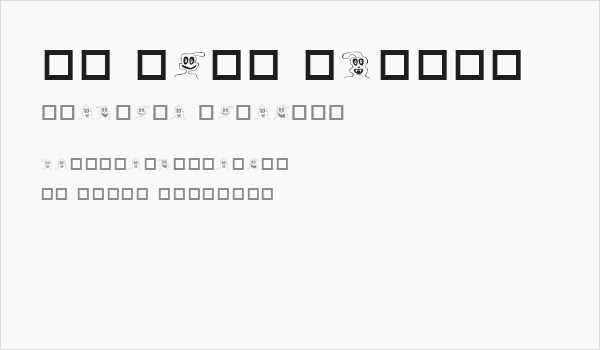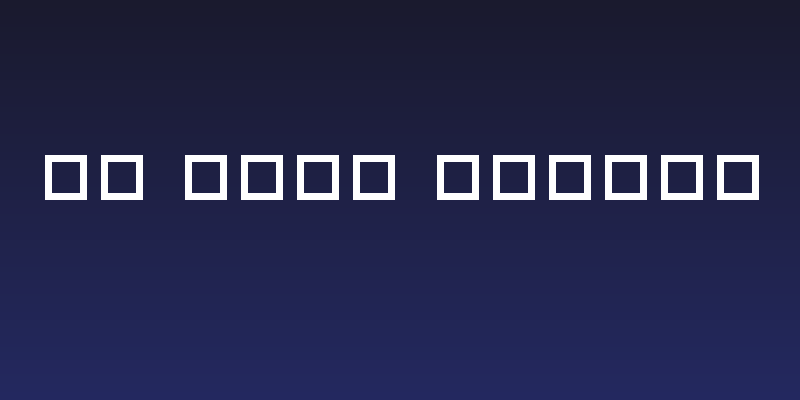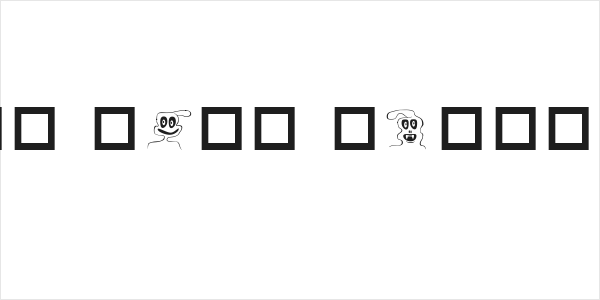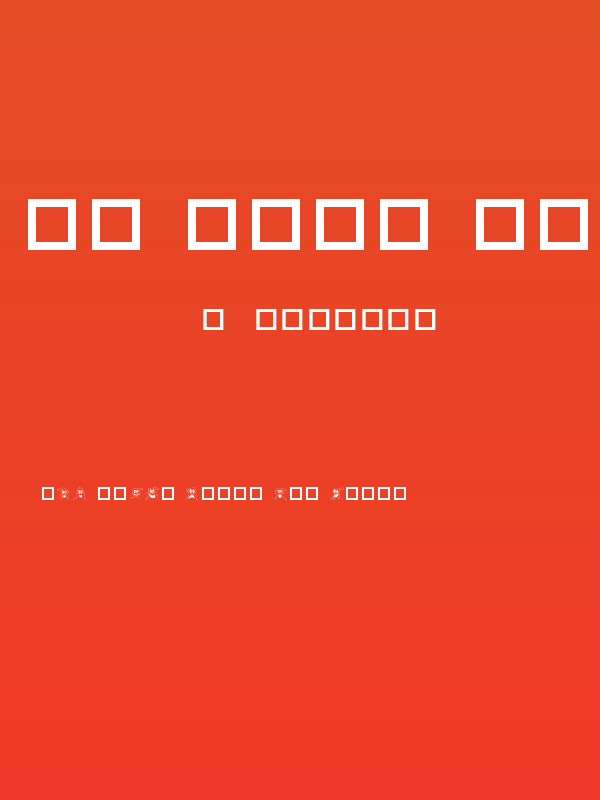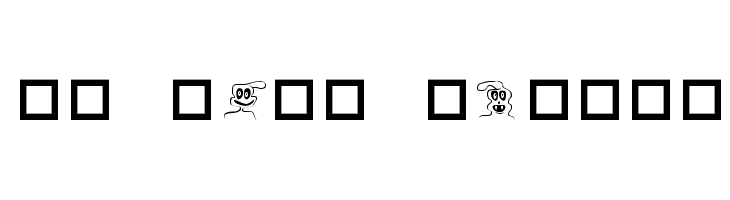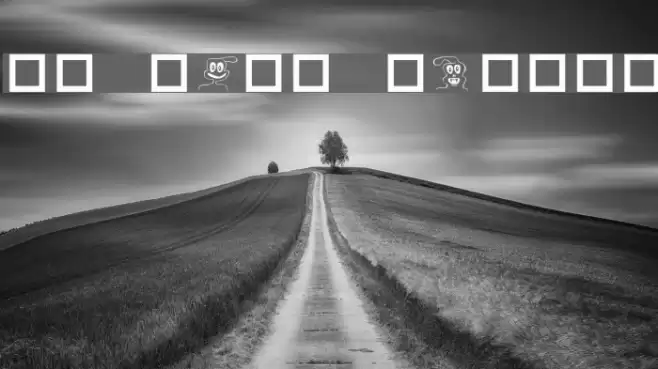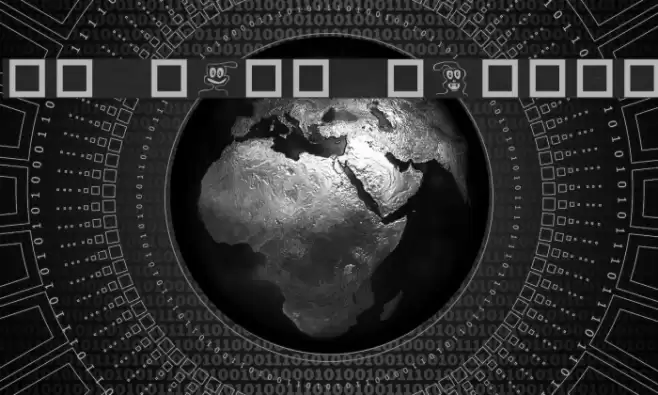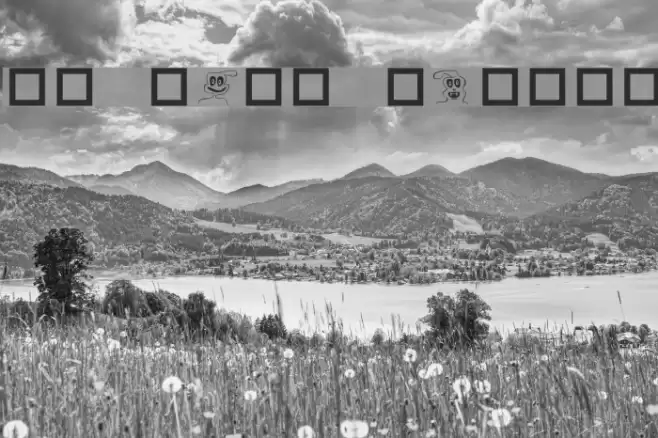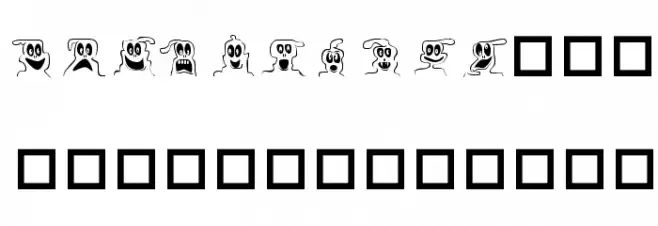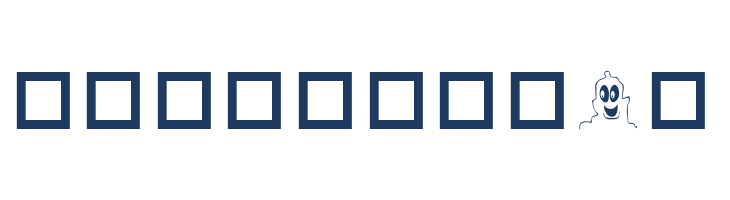
10 Lil' Ghosts Font
| Style général | Playful, Whimsical |
| Cas d'utilisation | Headlines, Posters, Invitations |
| Projets proposés | Ideal for Halloween invitations, party posters, children's books, and themed event signage. |